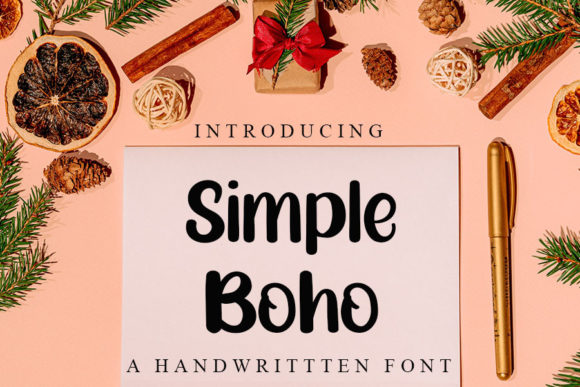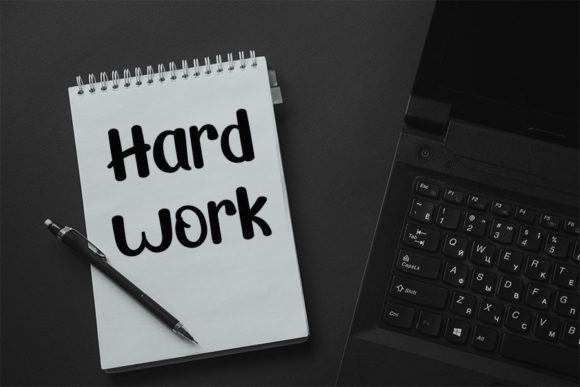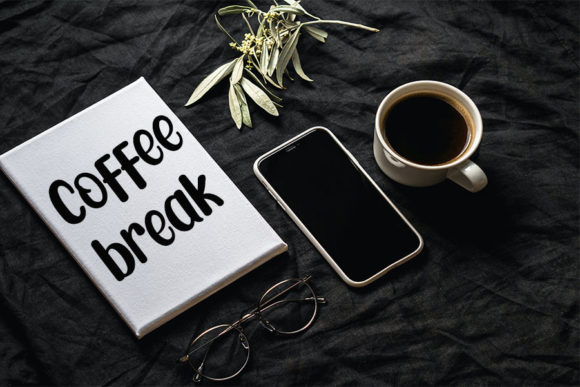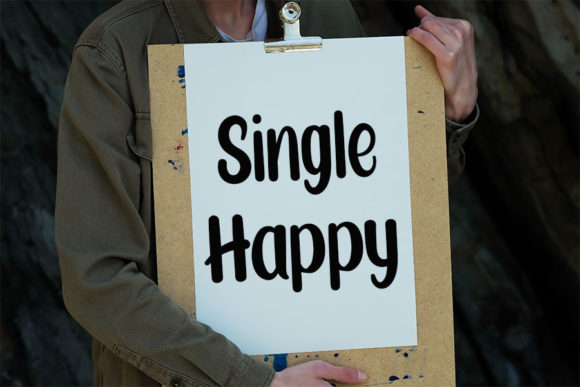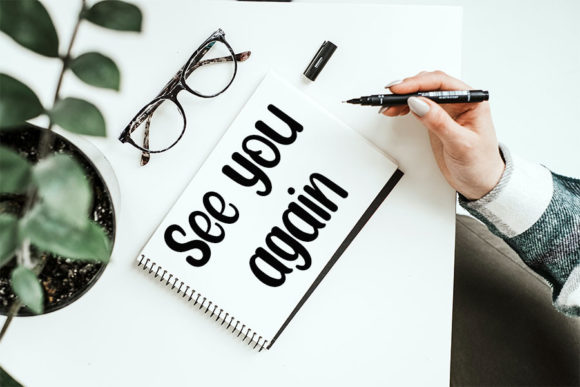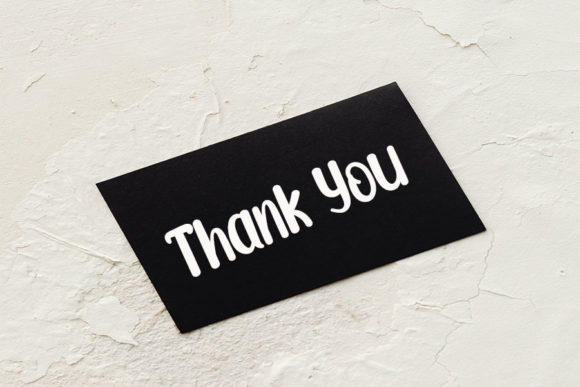
Simple Boho Font
About Simple Boho Font
The handwritten font you’ve described exudes a youthful boho feel, making it an excellent choice for a range of creative projects. Its versatile and laid-back nature makes it well-suited for various applications, including posters, magazine covers, logo design, wall art, and more.
In posters, this font’s youthful and boho vibe can add a dynamic and energetic touch to the overall design. Its handwritten style brings a sense of authenticity and creativity, making it eye-catching and appealing to a younger audience.
For magazine covers, the font’s boho feel can contribute to a trendy and stylish appearance. Its versatility allows it to adapt to different genres and themes, enhancing the visual impact and making the cover design stand out.
In logo design, the youthful and boho qualities of the font can create a unique and memorable brand identity. Whether used for a creative business, a fashion brand, or any other venture targeting a youthful audience, this font adds a touch of personality.
The font’s suitability for wall art makes it an ideal choice for creating visually pleasing and trendy decorations. Its boho feel can resonate well in modern interior design, bringing a relaxed and artsy atmosphere to living spaces.
The versatility of this handwritten font allows it to be applied to a wide range of creative projects beyond the mentioned examples. Its youthfulness and boho vibe make it a valuable design tool for any project that seeks to convey a laid-back, free-spirited, and stylish aesthetic.
In summary, this handwritten font with a youthful boho feel is more than just a typeface; it’s a versatile design element that can elevate the aesthetics of posters, magazine covers, logo designs, wall art, and various other creative endeavors. Its trendy and authentic style makes it a valuable asset for projects aiming to capture a youthful and bohemian atmosphere.